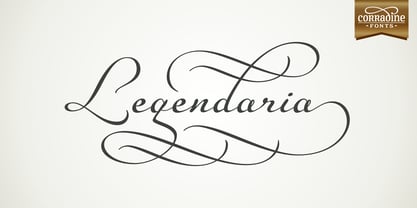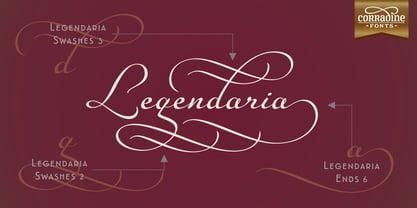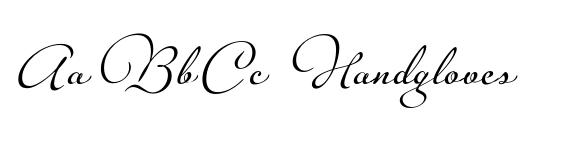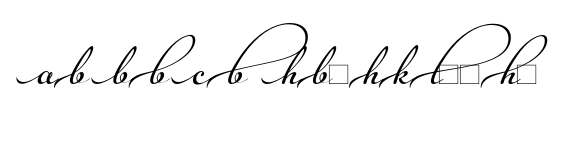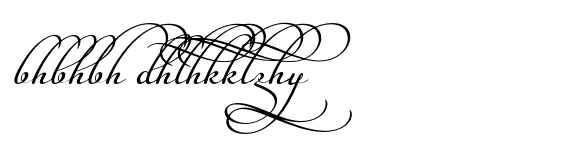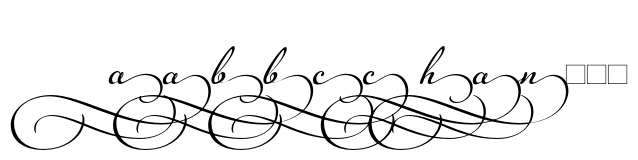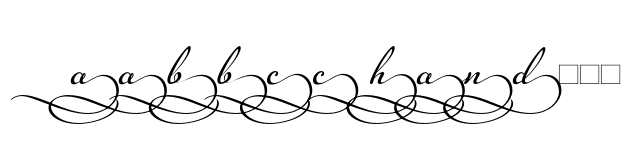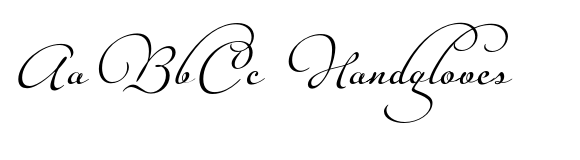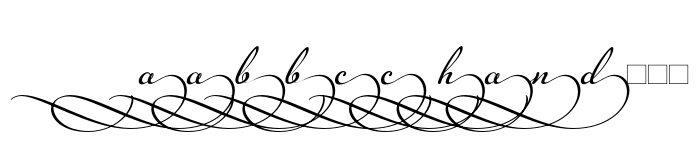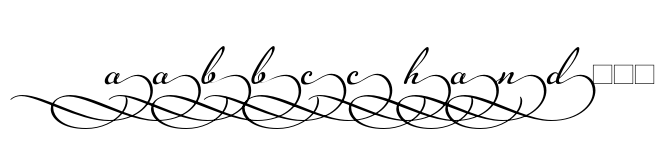
Legendaria™
by Corradine Fonts
About Legendaria Font Family
Legendaria is a very sophisticated and elegant connected script font. Its more than 1300 ornamented characters make it incredibly versatile. Most lower case letters have at least 15 different options, including tails and flourishes. For Open Type users “Legendaria OT” is the best choice instead the separated files of ornamental complementary fonts.
Designers: Manuel Eduardo Corradine